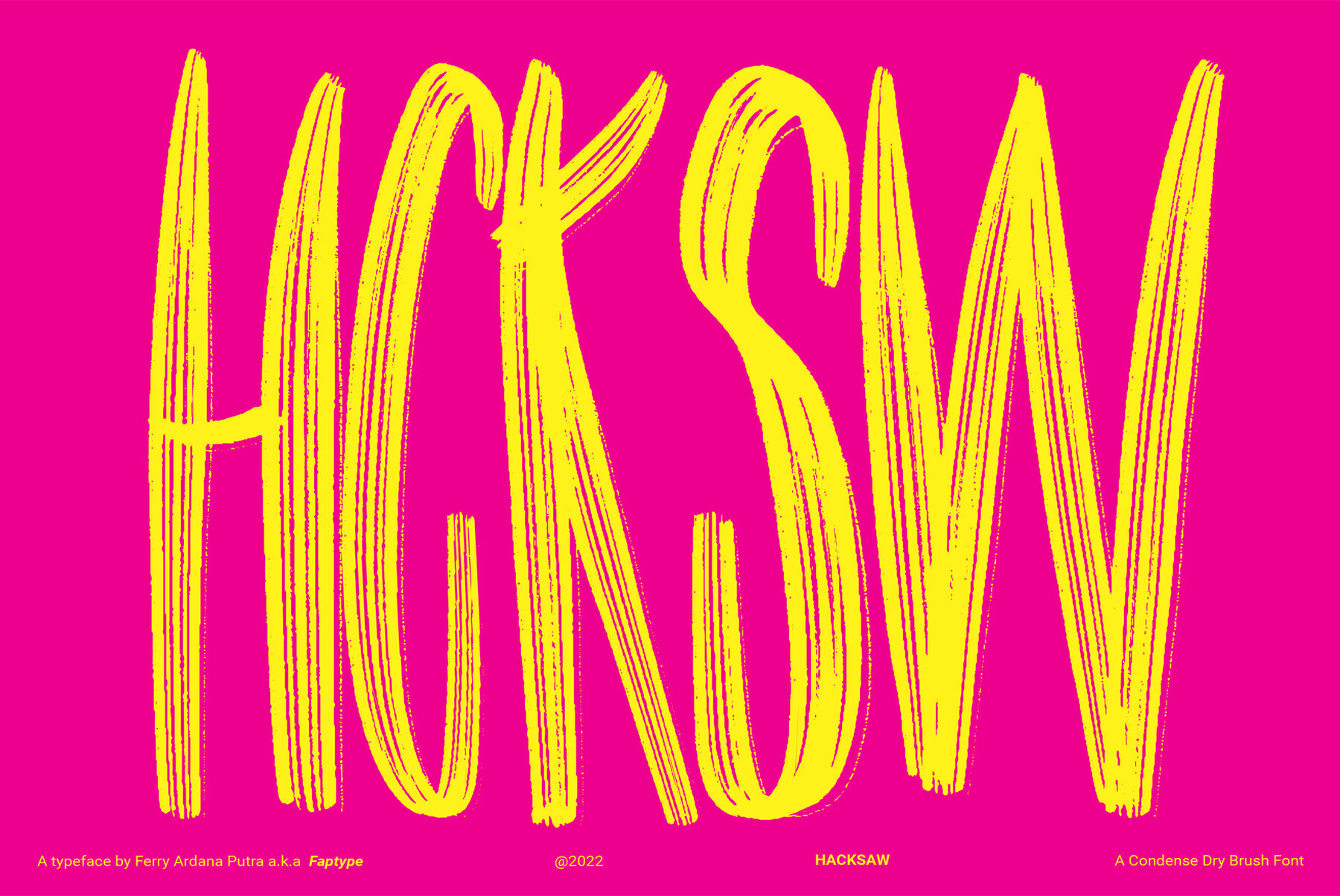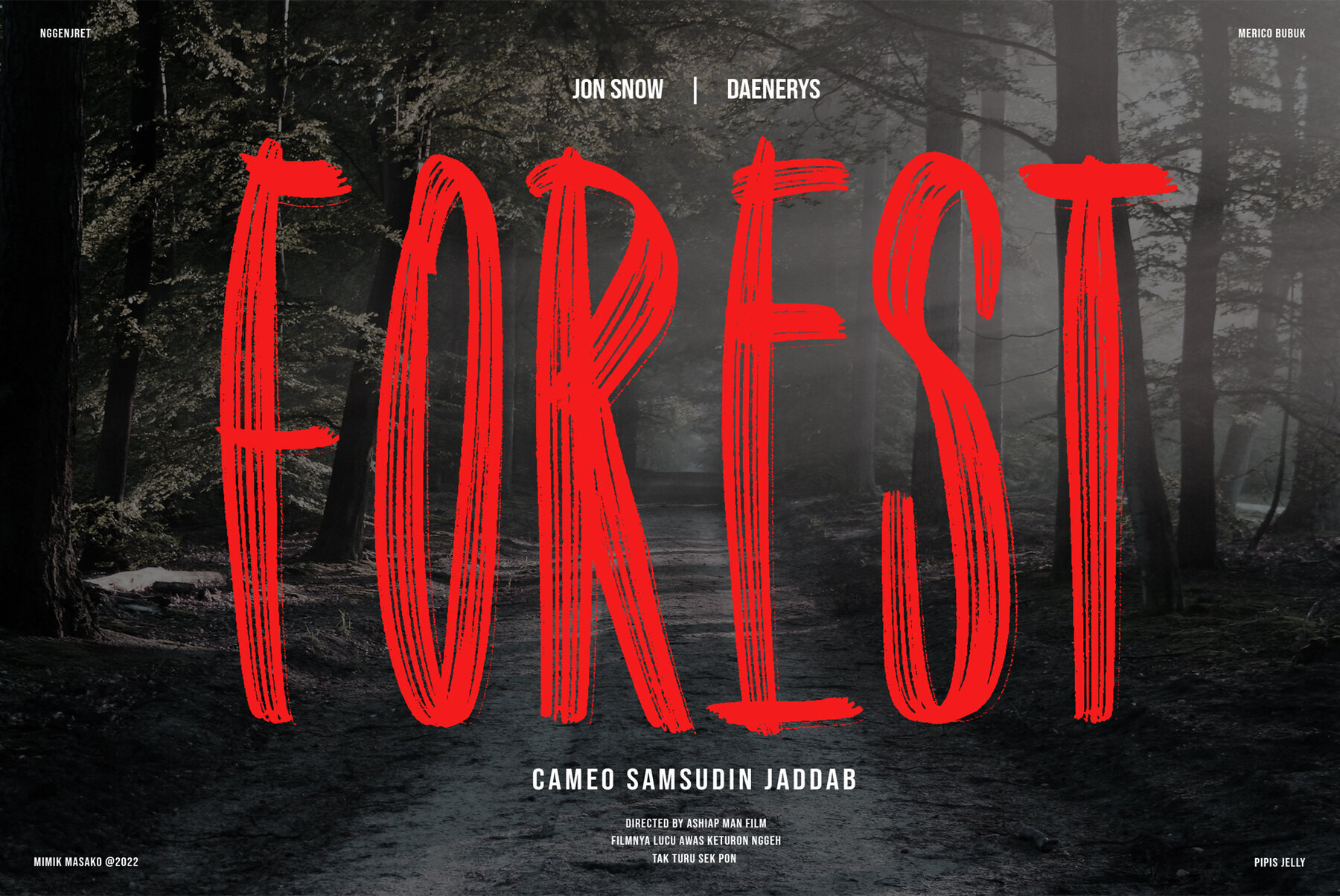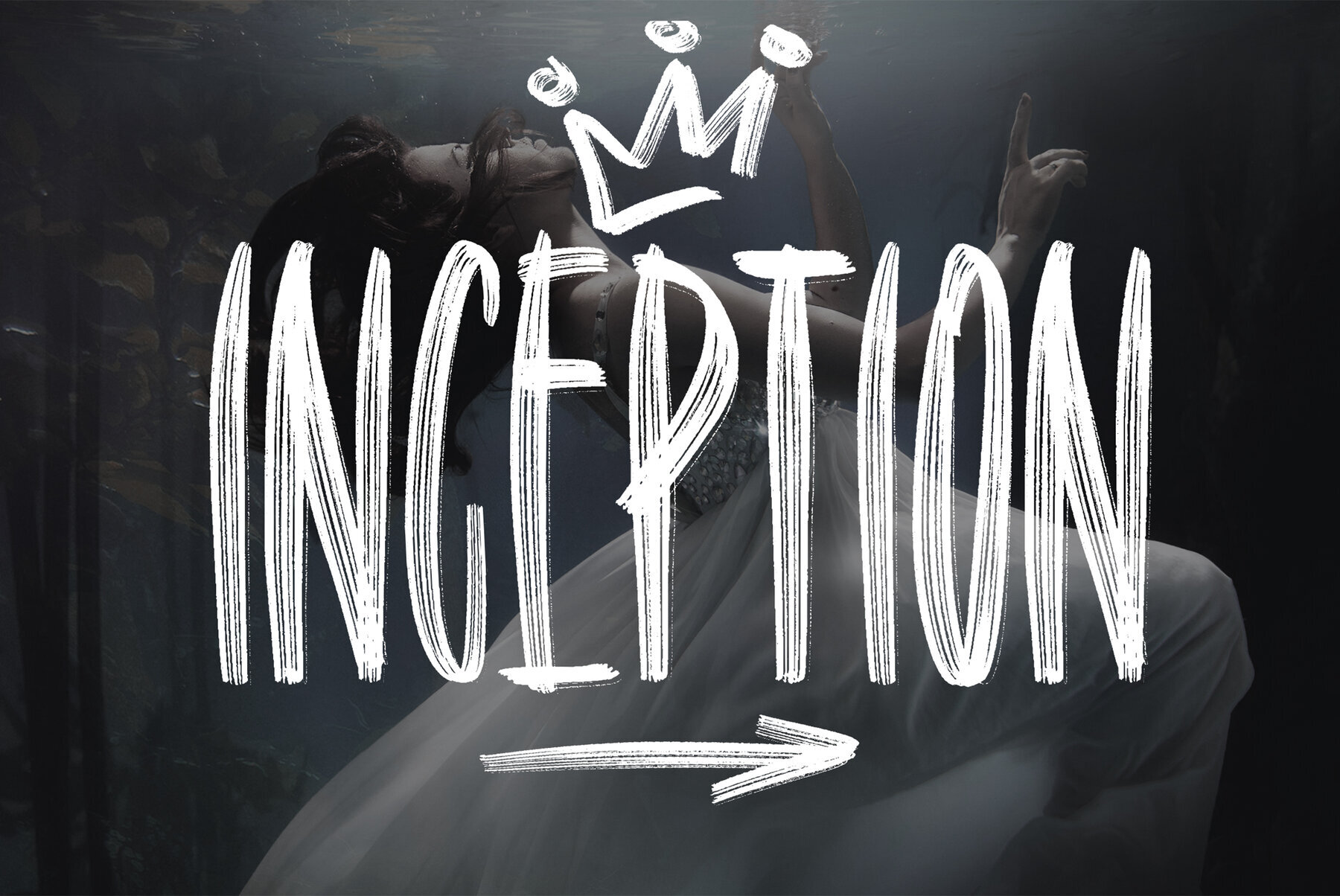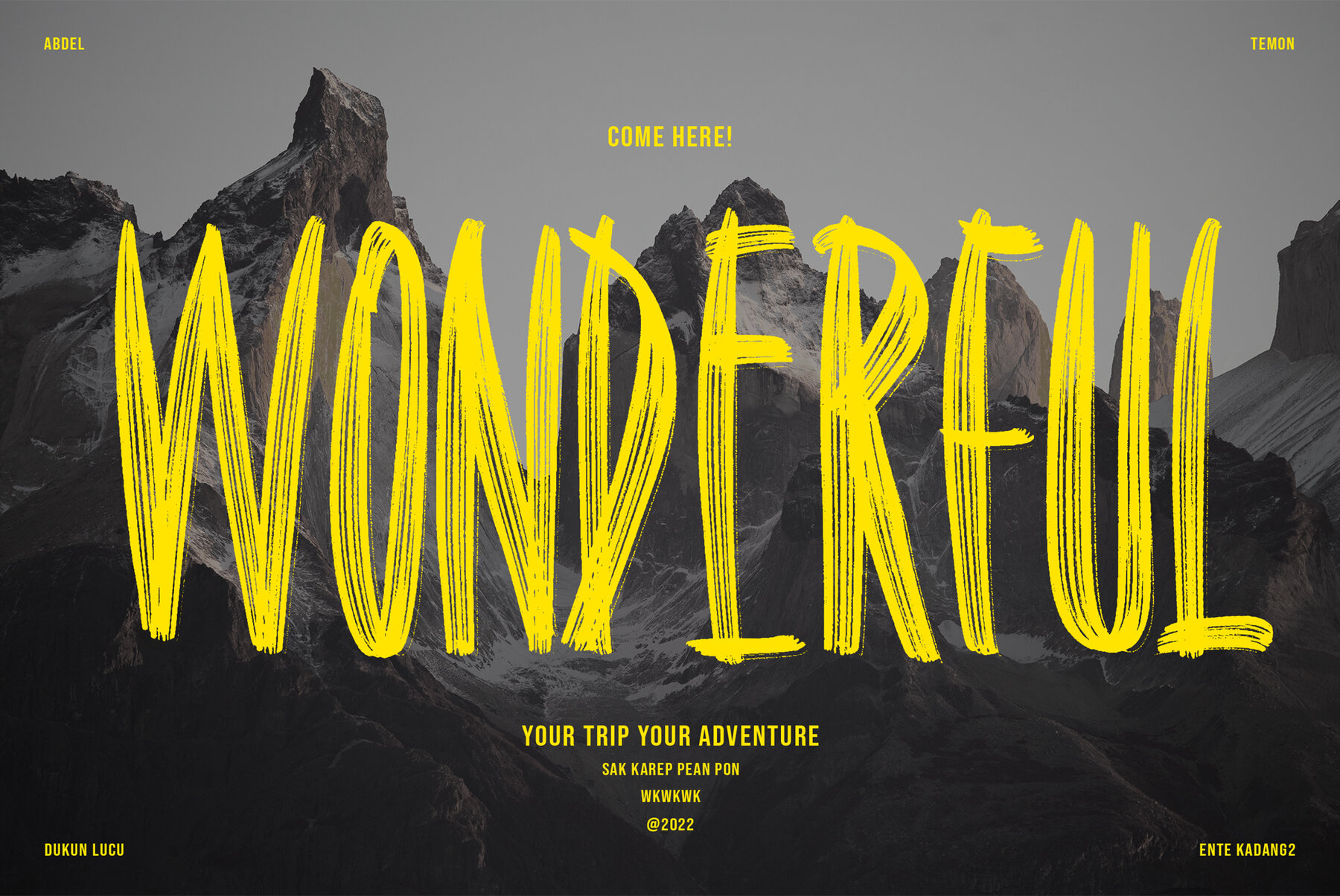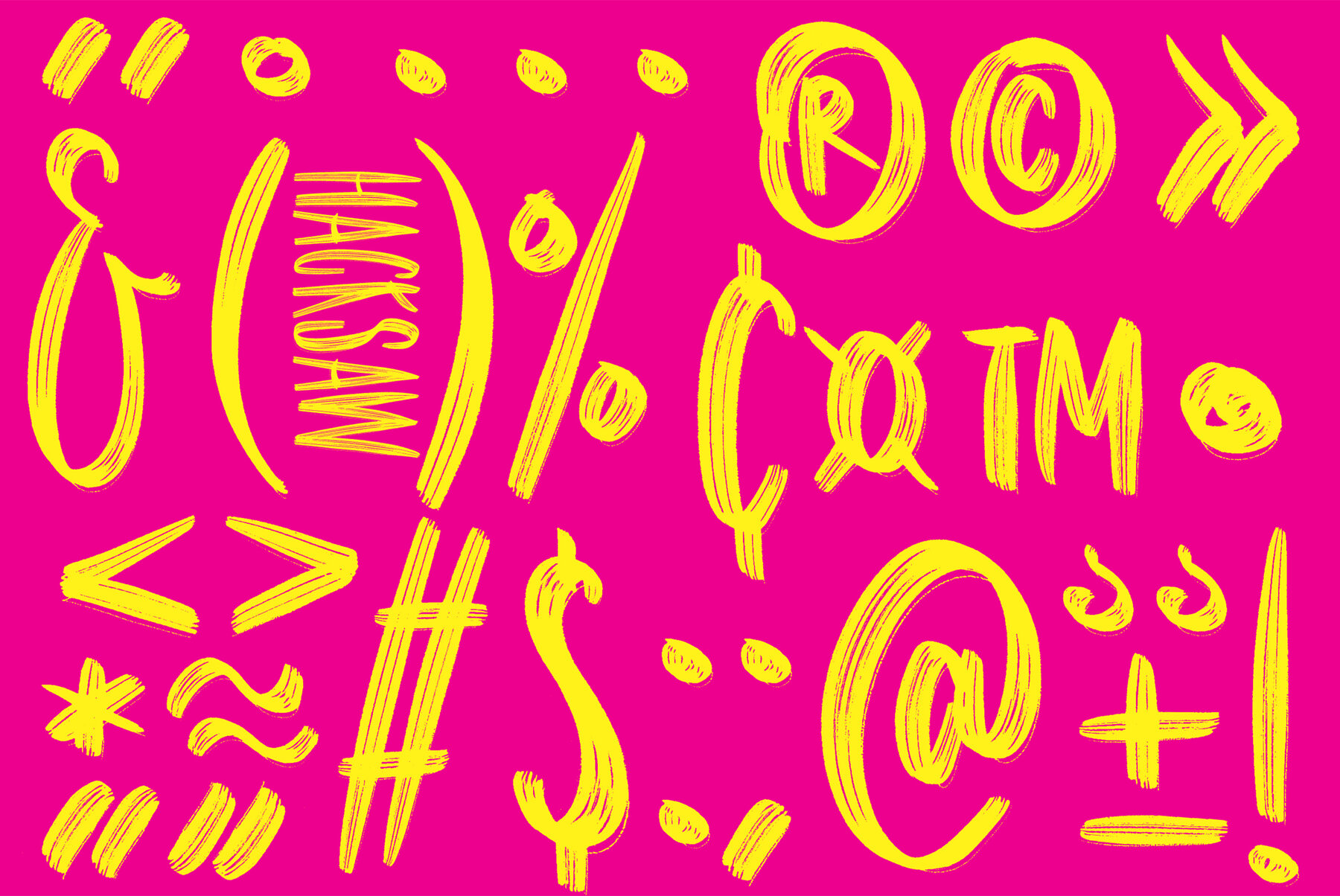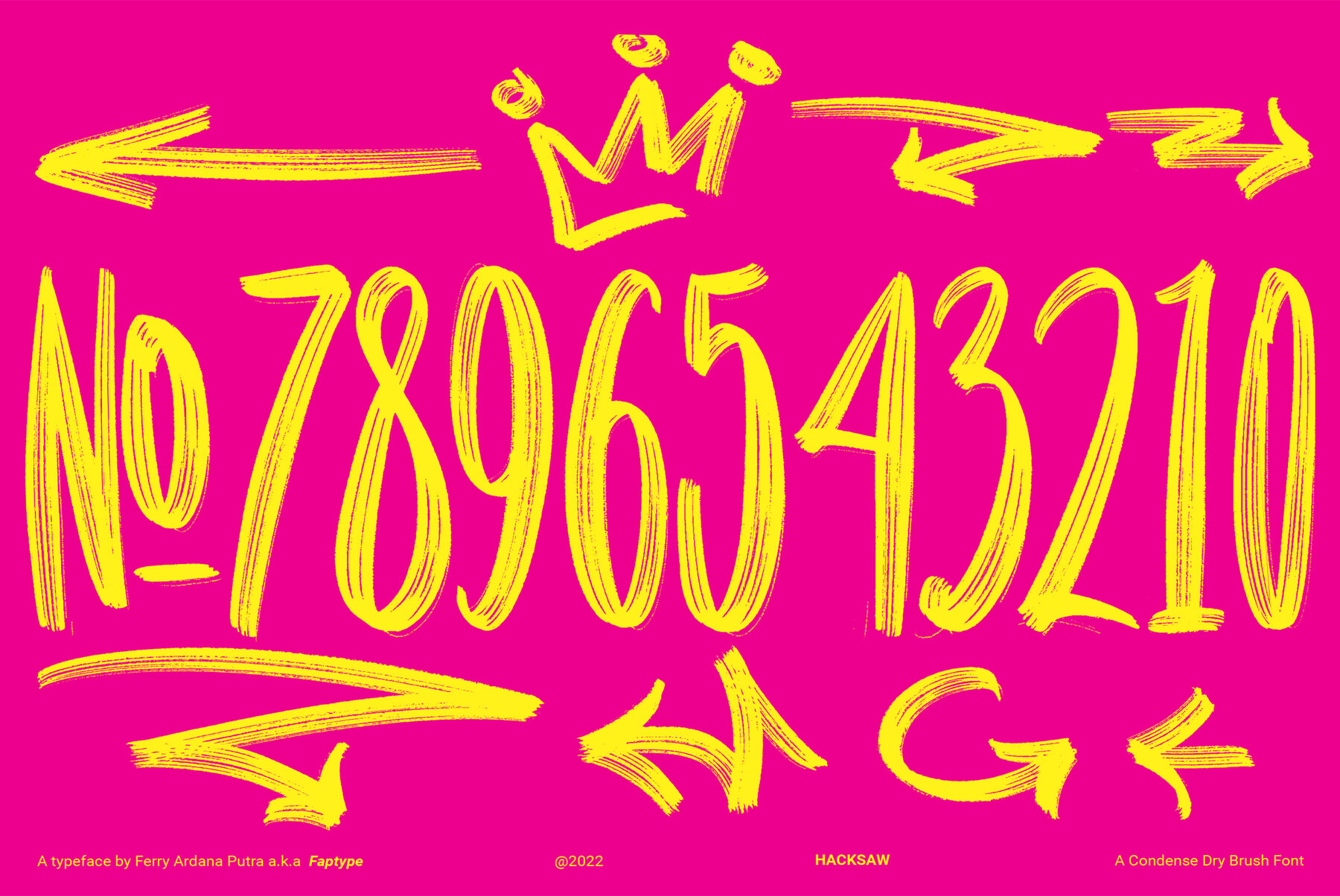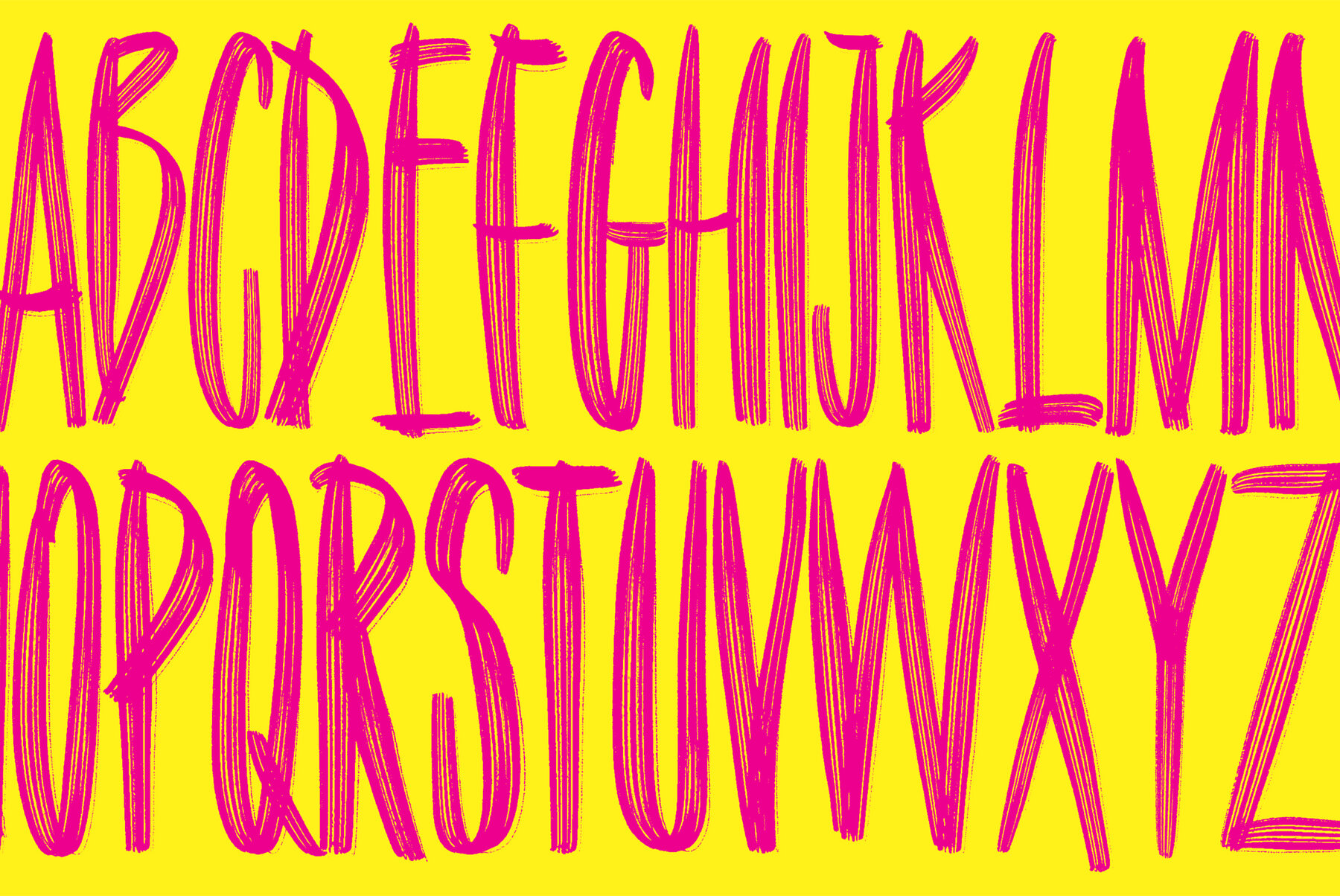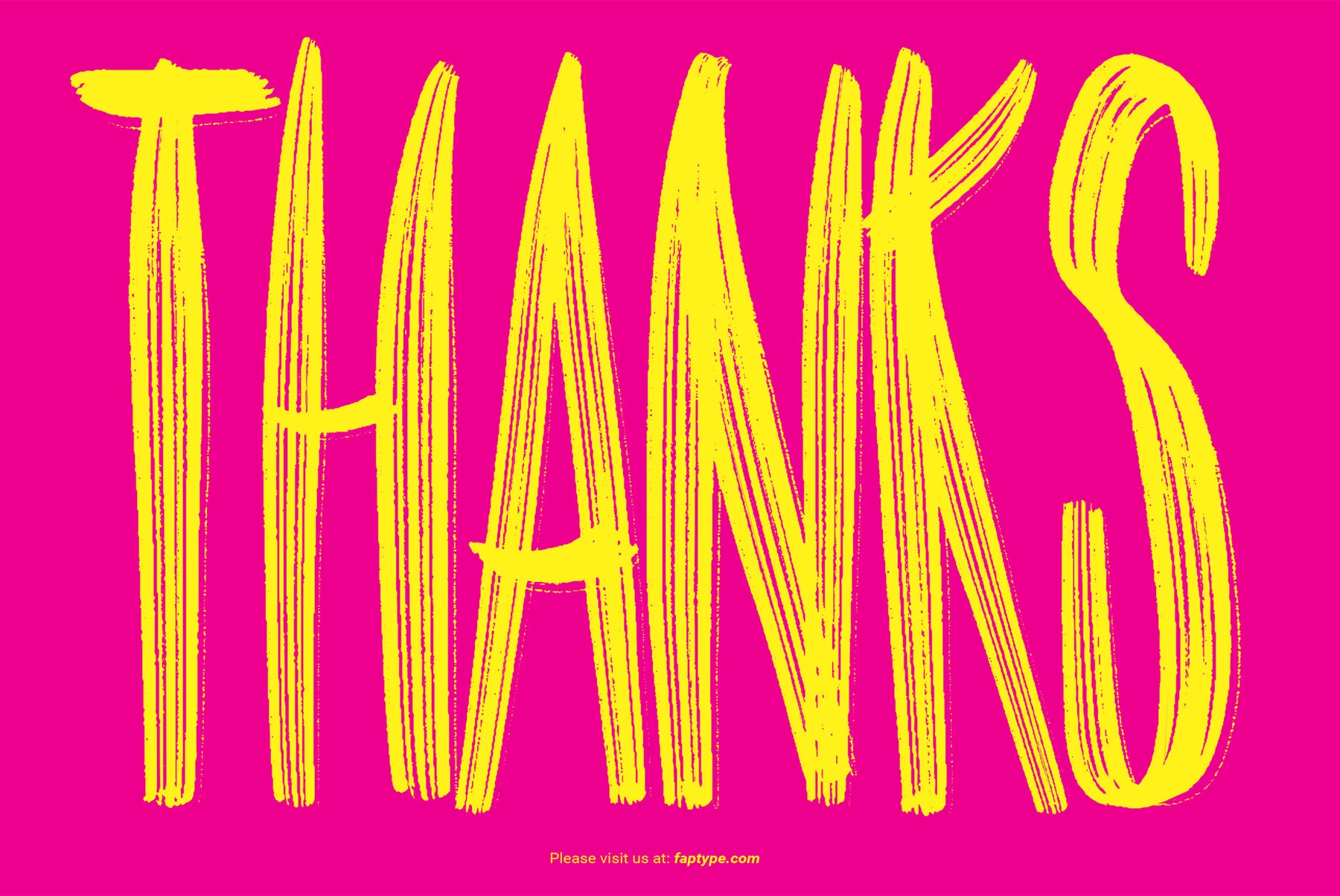
Hacksaw Brush Font
Hacksaw Regular
Hacksaw is dry brush font handmade with a dedicated soul. This super condensed and trippy typeface was designed to be exclusive and is perfect for those who love condensed, wild, natural brushed feel fonts.
This typeface is perfect for creating elegant branding and headlines for handmade, food & beverage, artisan goods, quotes, invites, t-shirts, logos, and, or use it to elevate your social media feed!
- A full set of upper & lowercase characters
- Numbers & punctuation
- Dozen of Swashes